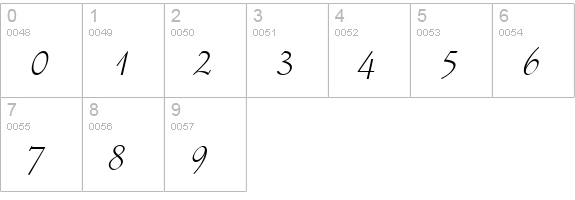
SchneidlerAmaTLig Italic Font Details
SchneidlerAmaTLig Italic is a distinctive, italic variant in the SchneidlerAmaTLig typeface family \xE2\x80\x94 well suited to design and typography projects.
SchneidlerAmaTLig Italic is a stunning font that effortlessly combines elegance and versatility. Its sleek and slanted design exudes a sense of sophistication and refinement, making it the perfect choice for projects that require a touch of elegance. With its delicate curves and graceful strokes, SchneidlerAmaTLig Italic adds a unique sense of style to any design. Whether used for headings, titles, or body text, this font effortlessly captures attention and creates a lasting impression. But what truly sets SchneidlerAmaTLig Italic apart is the fact that it is freely available to download at FontsMarket.com. This means that designers and creatives alike can easily access this exceptional font without any cost, allowing them to add a touch of sophistication to their projects without breaking the bank. Whether you are working on a personal project or a professional assignment, SchneidlerAmaTLig Italic is a font that will elevate your design to new heights. Its versatility and elegance make it suitable for a wide range of applications, from invitations and logos to packaging and branding materials. So why wait? Download SchneidlerAmaTLig Italic today from FontsMarket.com and unlock the unlimited potential of this exquisite font. Let your creativity flourish and watch as your designs come to life with the effortless beauty of SchneidlerAmaTLig Italic.